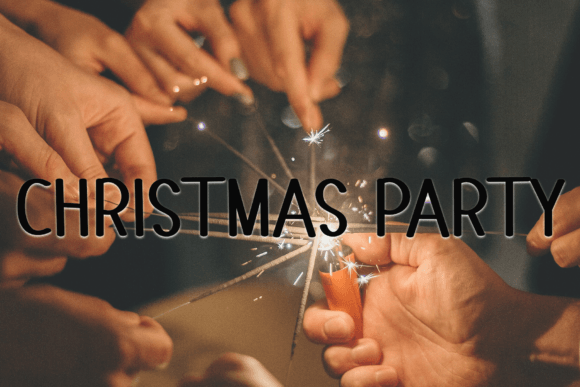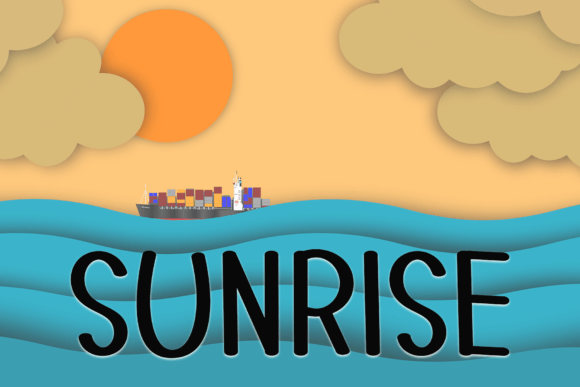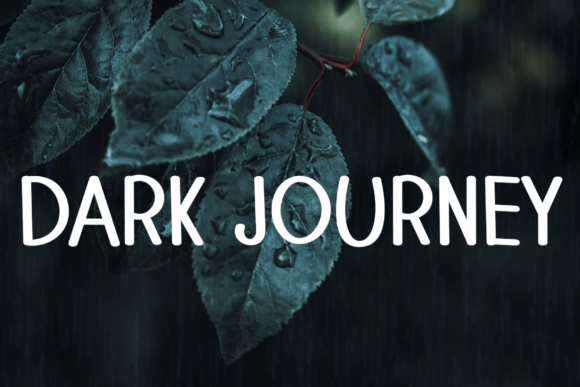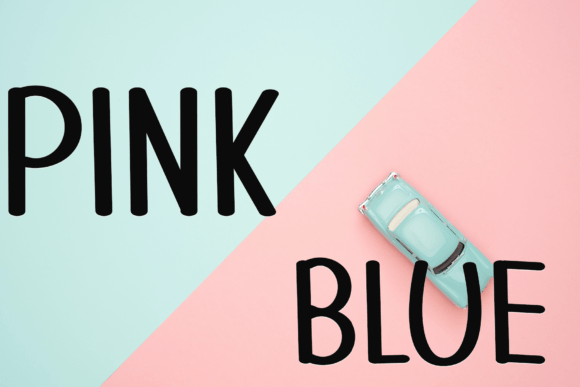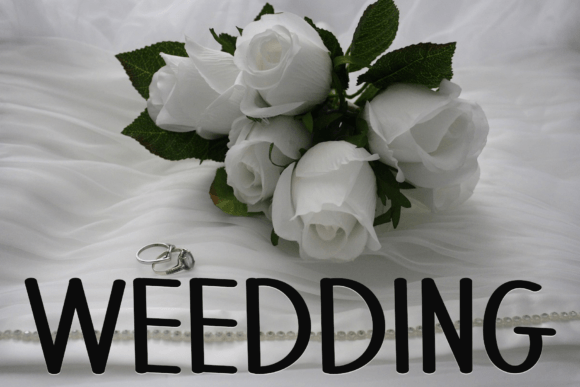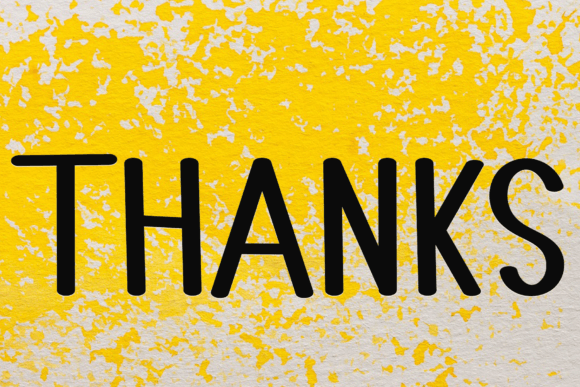
Introducing Happy Santa: The Ultimate Font for Festive and Fun Designs
Are you tired of using the same old fonts for your holiday designs? Look no further than Happy Santa, a cool and modern handwritten sans-serif font that’s perfect for adding a touch of festive fun to your crafts, digital designs, presentations, and greeting cards.
A Font that’s Full of Cheer
Happy Santa is a unique and playful font that’s sure to bring a smile to anyone’s face. Its modern handwritten style is both fresh and fun, making it the perfect choice for designers and crafters who want to add a little extra joy to their work. Whether you’re creating holiday cards, decorations, or digital graphics, Happy Santa is the perfect font to get you in the mood for the season.
Versatile and Easy to Use
One of the best things about Happy Santa is its versatility. This font can be used for a wide range of projects, from traditional crafts like scrapbooking and card making to digital designs like social media graphics and presentations. Its clean and simple sans-serif style makes it easy to read and understand, while its playful vibe adds a touch of personality to any design.
Happy Santa is a font that’s specifically designed with designers and crafters in mind. Its unique style and versatility make it the perfect choice for anyone who wants to add a little extra something to their work. Whether you’re a professional designer or a hobbyist crafter, Happy Santa is sure to become your go-to font for all your festive and fun designs.
Use Happy Santa for:
- Crafts: scrapbooking, card making, and other paper crafts
- Digital design: social media graphics, presentations, and digital invitations
- Greeting cards: holiday cards, birthday cards, and other special occasion cards
- Decorations: holiday decorations, garlands, and other festive decor
Why Choose Happy Santa?
So why choose Happy Santa over other fonts? Here are just a few reasons why this font stands out:
- Unique and playful style: Happy Santa has a one-of-a-kind style that’s sure to add a touch of personality to any design
- Versatile: this font can be used for a wide range of projects, from traditional crafts to digital designs
- Easy to read: Happy Santa’s clean and simple sans-serif style makes it easy to read and understand
- Modern and fresh: this font has a modern and fresh style that’s perfect for designers and crafters who want to stay on-trend
Get Creative with Happy Santa
Now that you’ve learned more about Happy Santa, it’s time to get creative! Here are a few ideas to get you started:
- Create a festive holiday card with Happy Santa as the main font
- Use Happy Santa to add a playful touch to your digital designs
- Make a handmade holiday decoration with Happy Santa as the focal point
- Use Happy Santa to create a fun and playful presentation for your next meeting or event